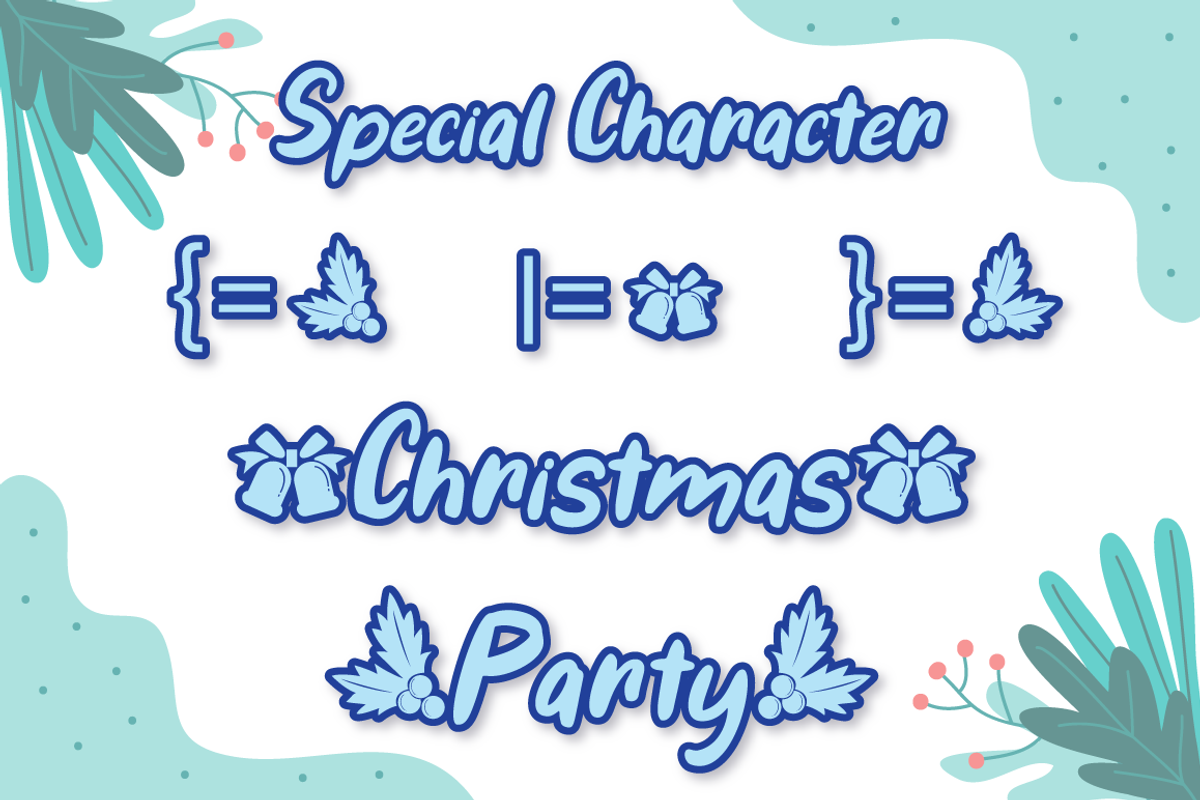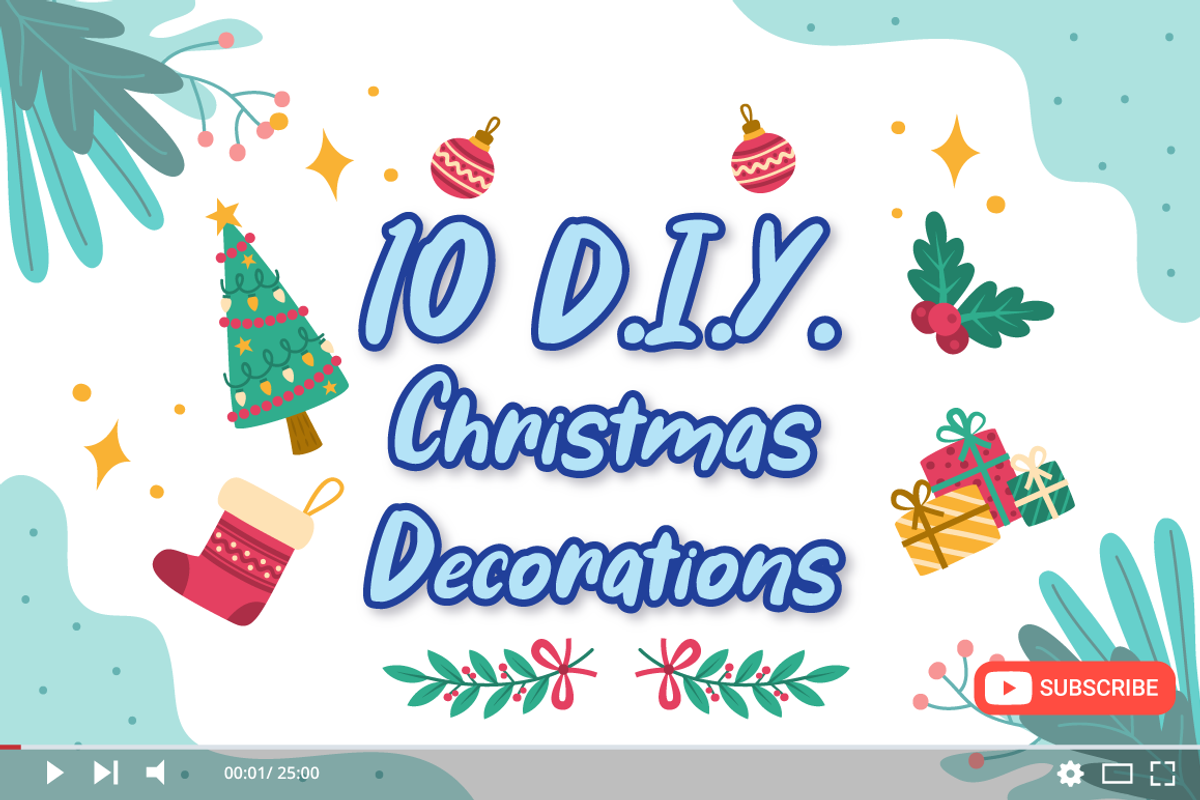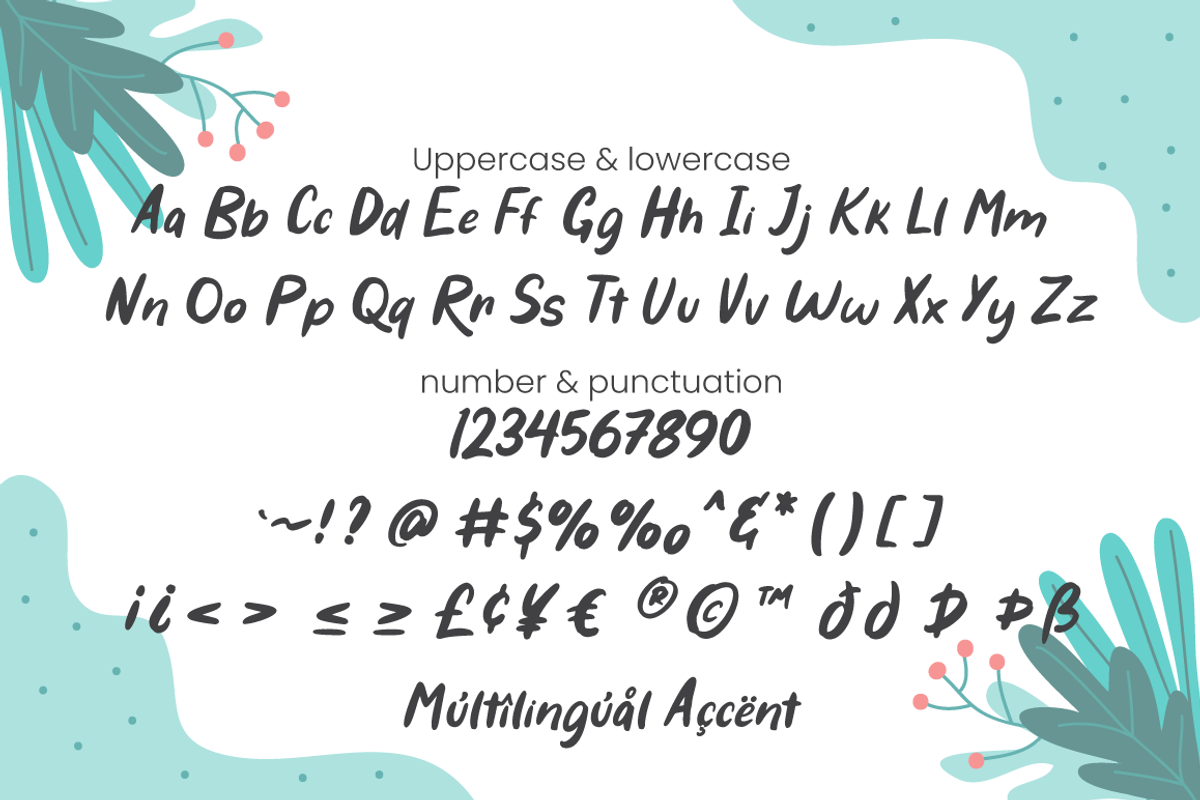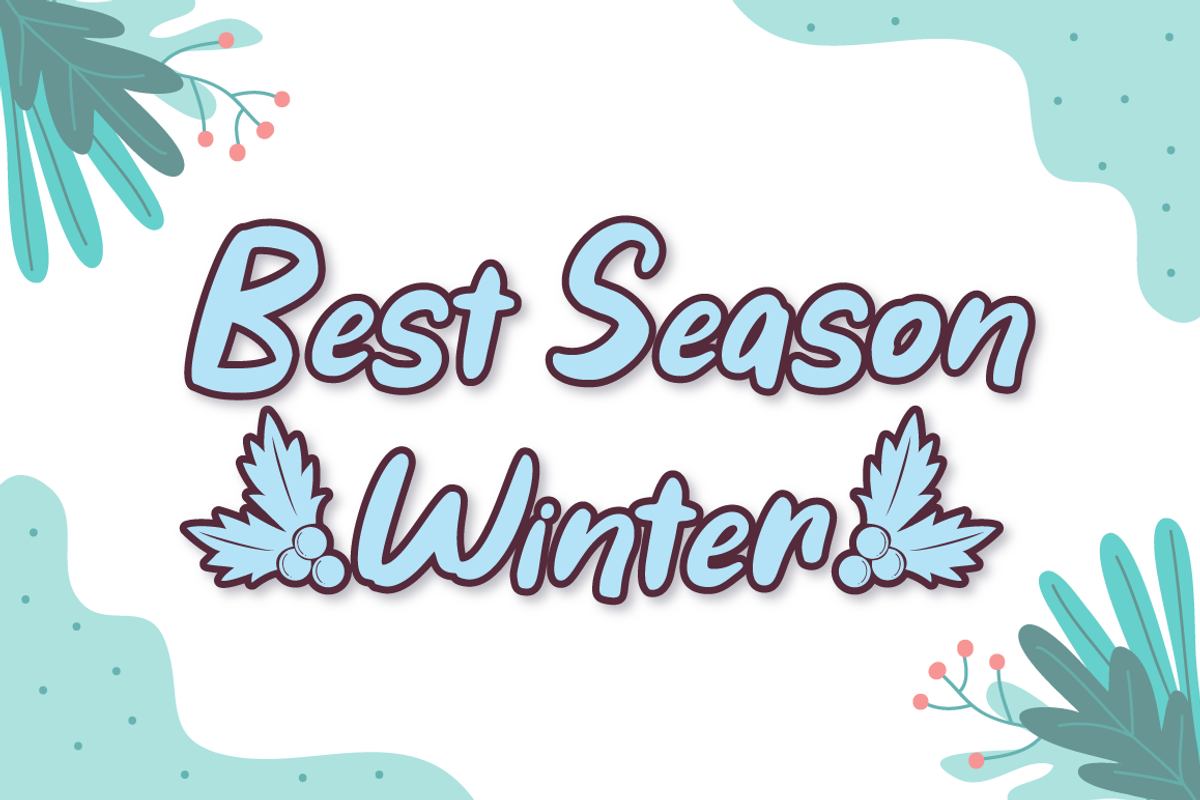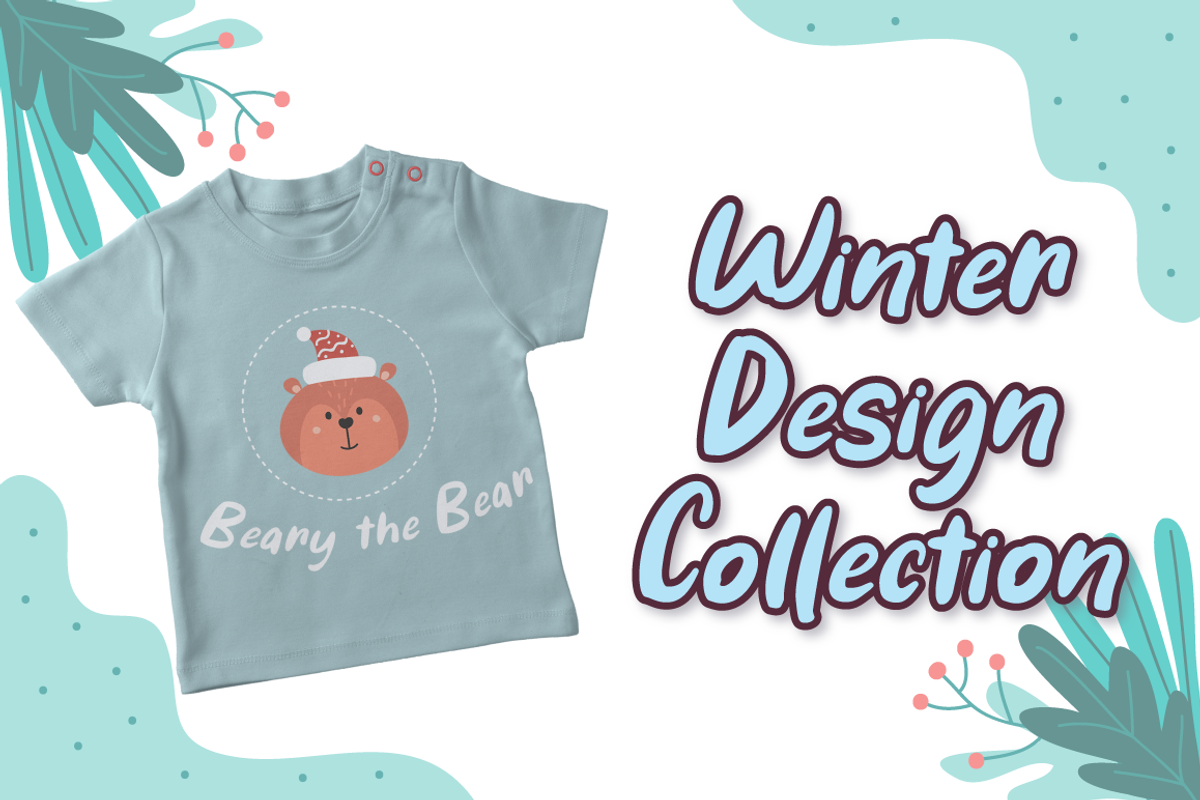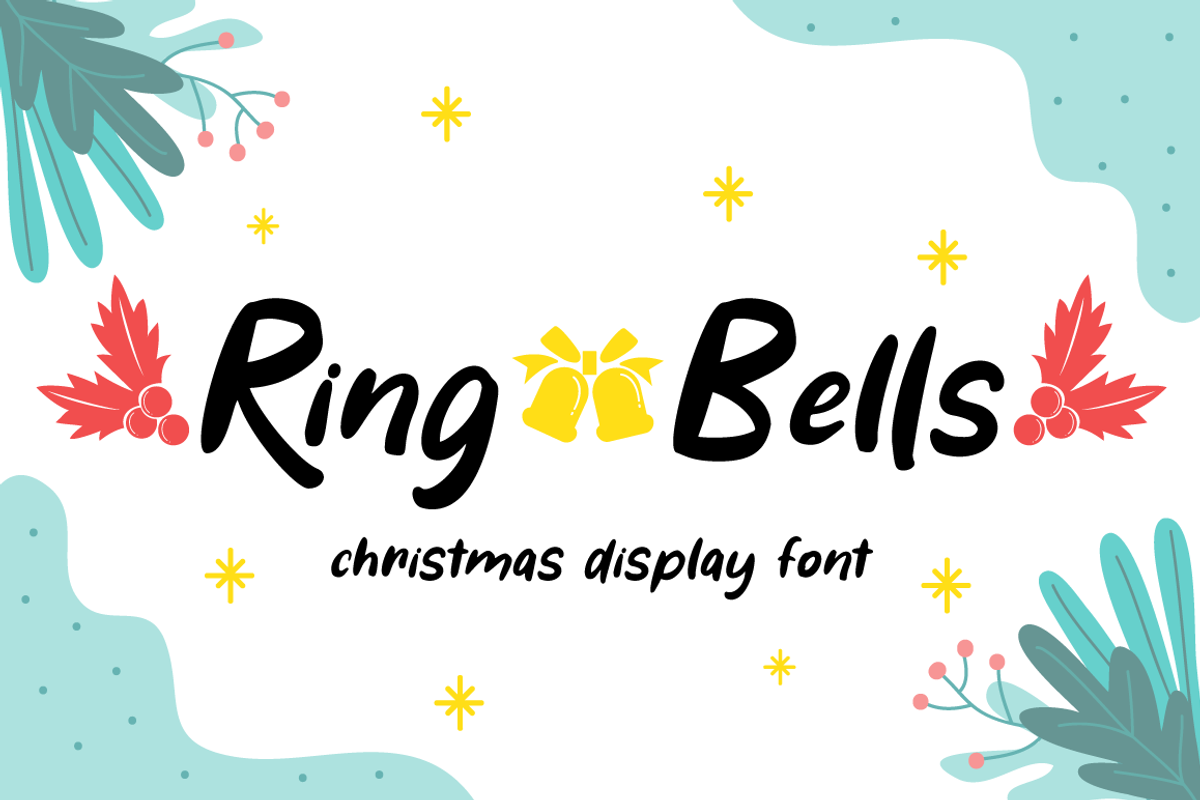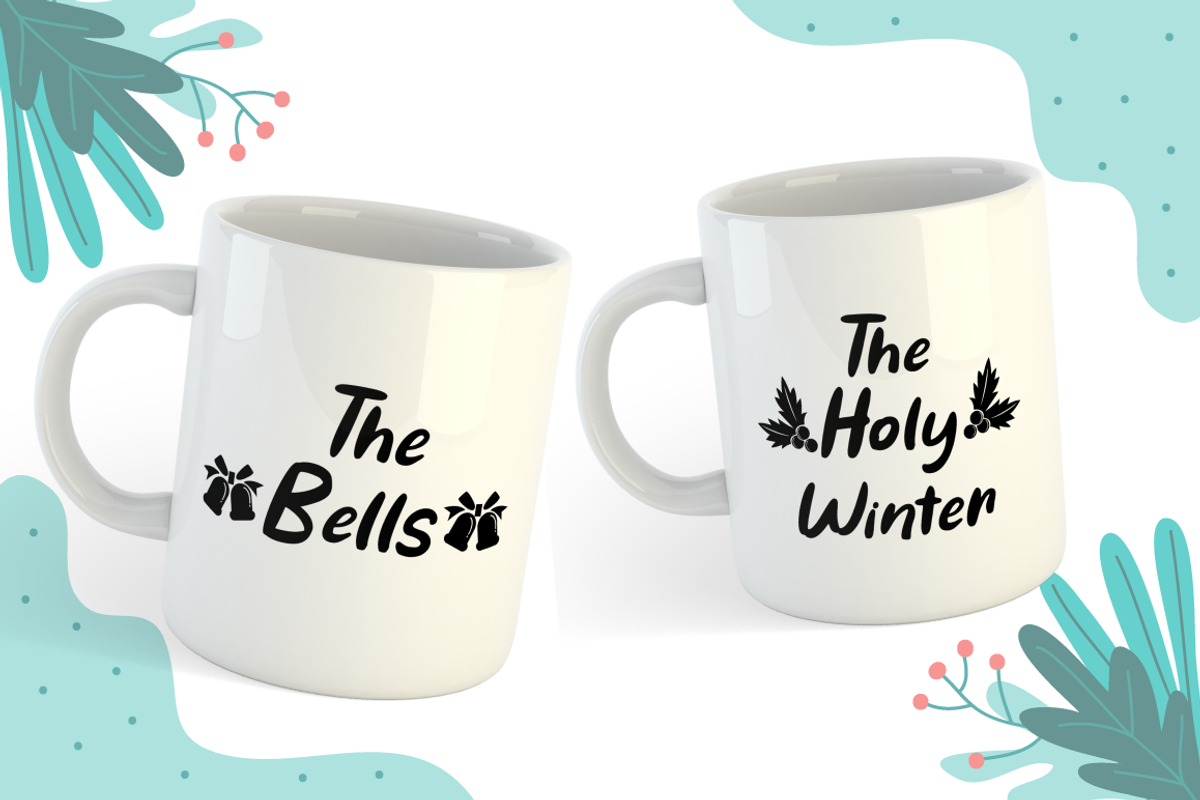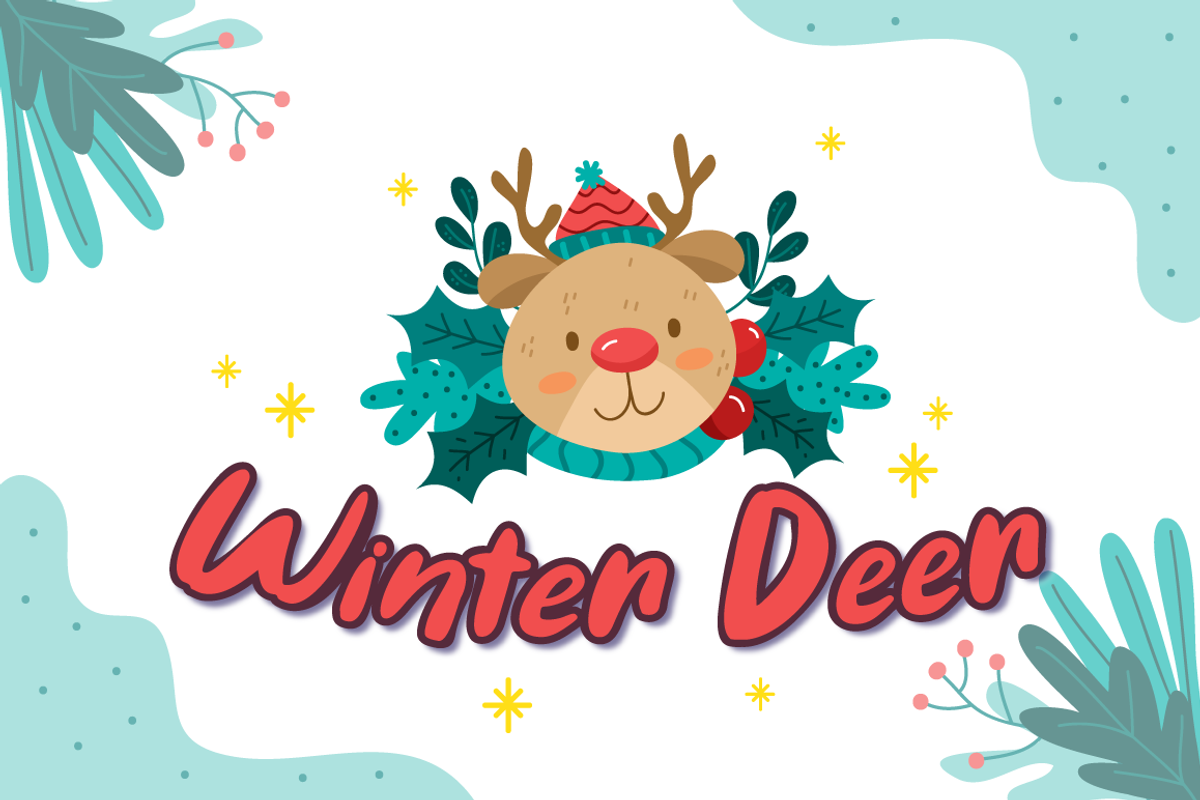
Ring Bells - Christmas Font
Ring Bells is an exquisite font for christmas theme design, with dingbats christmas ornament on character "{,},|" Fall in love with it and bring your projects to the highest levels!
Ring Bells is perfect for branding, logo, invitation, stationery, social media post, product packaging, merchandise, blog design, game titles, cute style design, Book/Cover Title and more.
- christmas ornament dingbats on character "{,},|"
- Multilingual Support (Afrikaans, Albanian, Catalan, Danish, Dutch, English, Estonian, Finnish, French, German, Icelandic, Italian, Norwegian, Portugese, Spanisch, Swedish, Zulu)